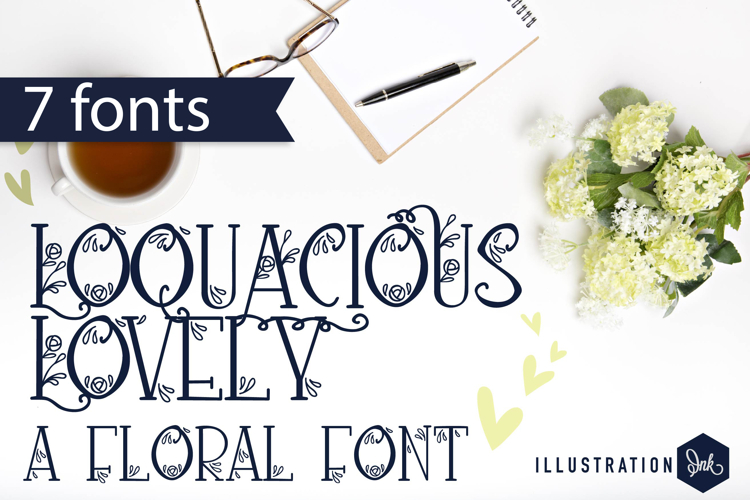
PN Loquacious Font Family
This hand-crafted font is a whimsical, hand-written, print with florals and curls throughout. There are 7 variations included.